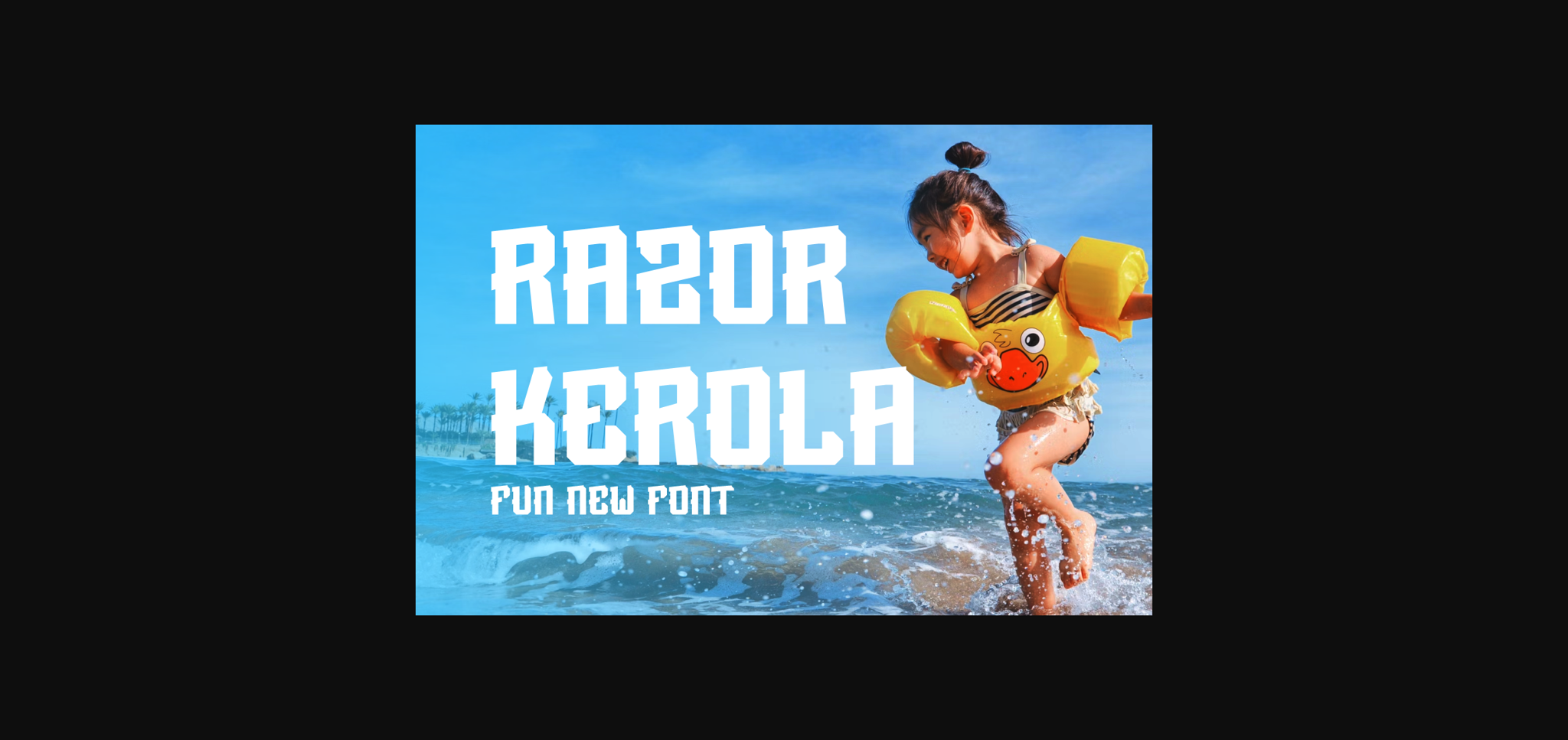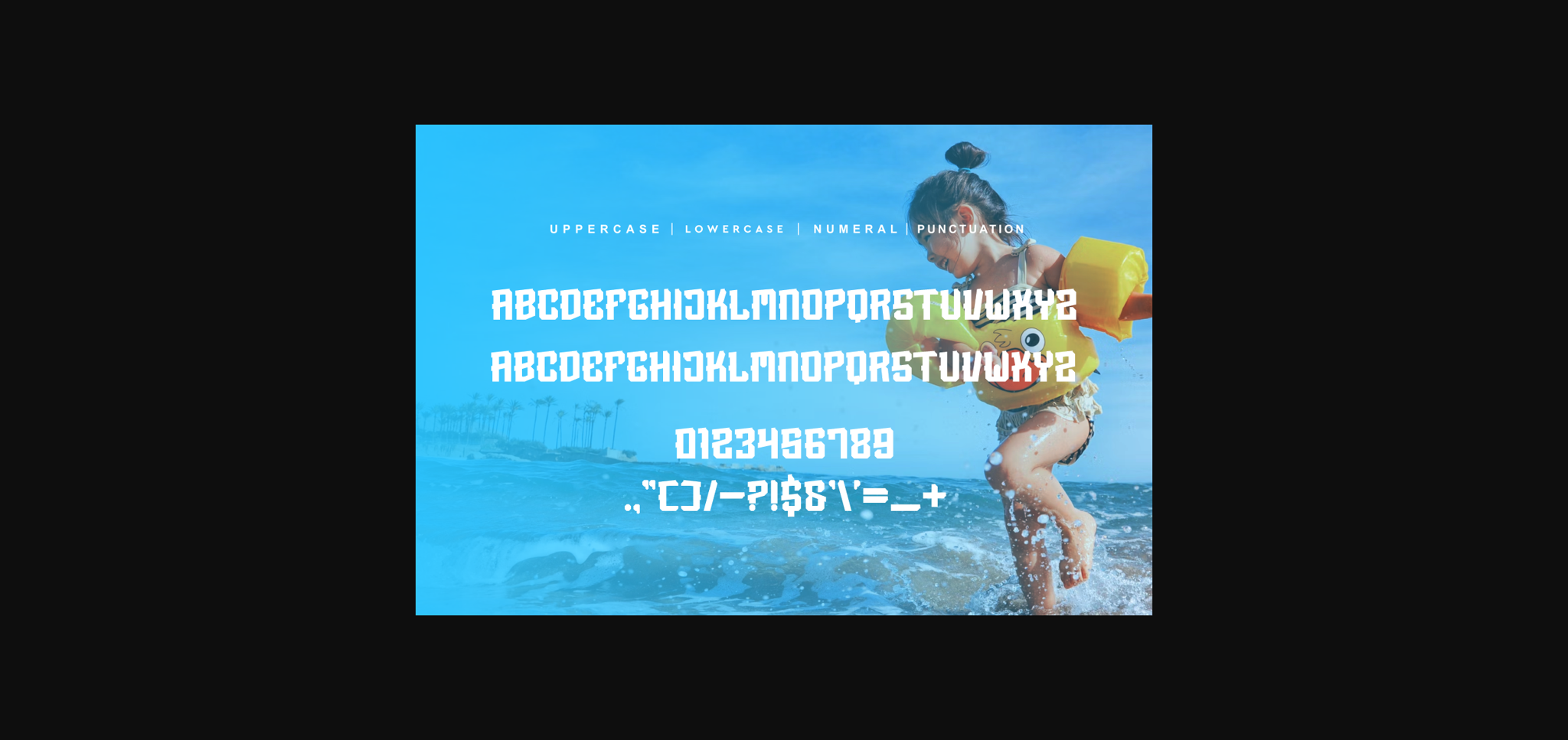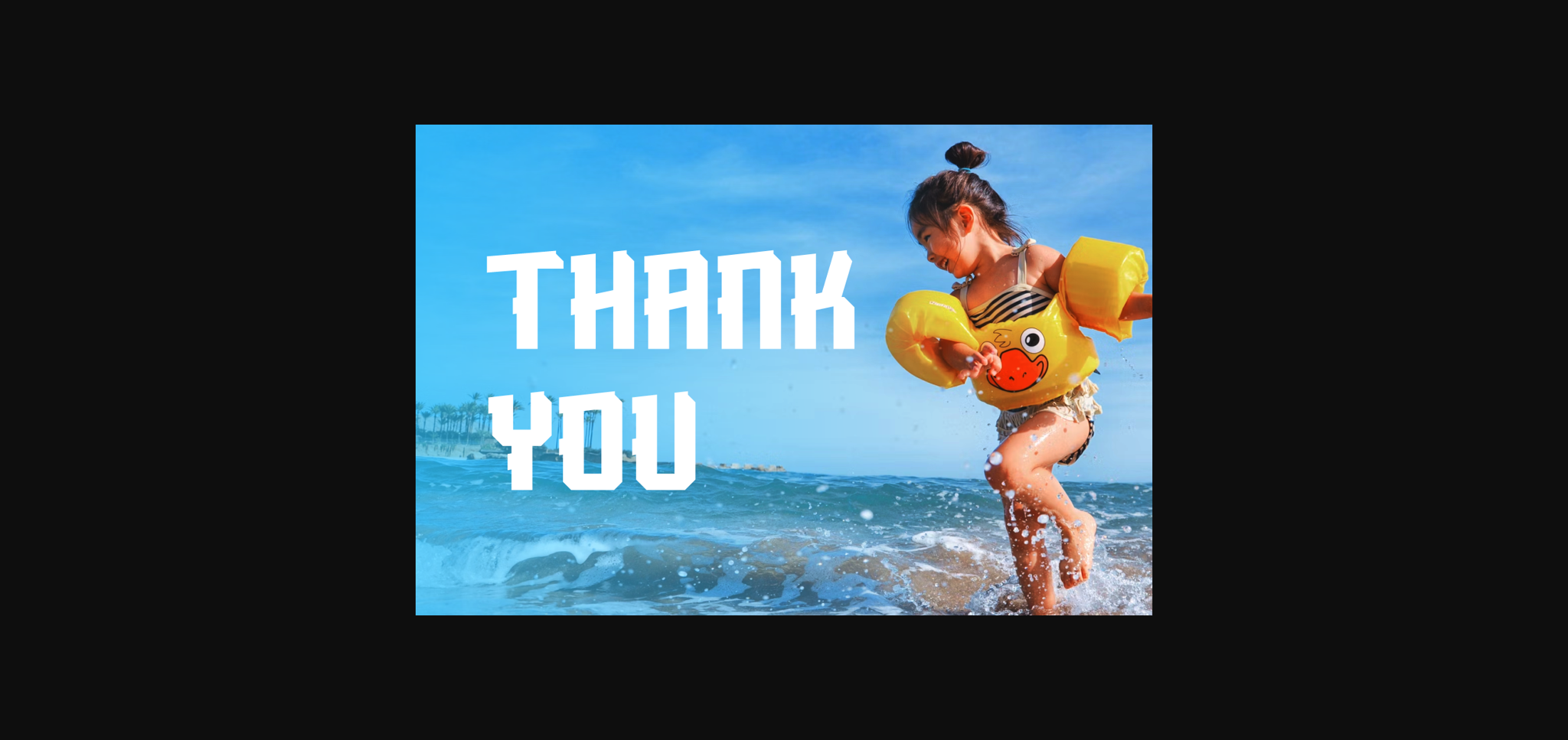
Razor Kerola Font
About Razor Kerola Font
Introducing Razor Kerola, a distinctive font that stands a cut above the rest. Its sharp, edgy style is ideal for dynamic design work, effortlessly fitting into your unique labeling efforts, eye-catching movie scenes, and attention-grabbing posters. Razor Kerola is not just limited to these; it’s also perfect for headlining gigs, designing album covers, or bringing life to your logos.